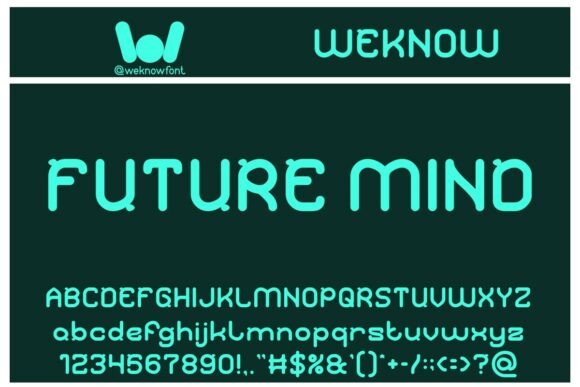
Introducing Future Mind Font: The Ultimate Display Typeface for Modern Design
In the world of typography, fonts play a crucial role in conveying the tone and personality of a brand or design project. With the ever-evolving landscape of digital media, it’s essential to have a font that can adapt to various mediums while maintaining its unique charm. This is where Future Mind Font comes in – a robust display font that seamlessly blends modern futurism with nostalgic retro vibes.
What is Future Mind Font?
Future Mind typeface is a sleek and modern display font designed to make a statement. Its eclectic blend of futuristic and retro elements creates a unique visual identity that’s perfect for headlines, branding, and creative projects. The font’s monospace style gives it a clean and structured look, making it highly readable across various mediums.
The Characteristics of Future Mind Font
So, what makes Future Mind Font stand out from the rest? Here are some of its key characteristics:
- Modern Futurism: Future Mind Font boasts a futuristic design that’s perfect for brands and projects looking to convey a sense of innovation and forward-thinking.
- Nostalgic Retro Vibes: The font’s retro elements add a touch of warmth and playfulness, making it suitable for projects that require a friendly and approachable tone.
- Sleek Monospace Style: The font’s monospace style ensures that it’s highly readable, even at smaller sizes.
- Versatility: Future Mind Font is designed to work seamlessly across various mediums, from apparel and music to movies, games, and digital platforms.
Use Cases for Future Mind Font
Future Mind Font is an incredibly versatile typeface that can be used in a wide range of applications. Here are some examples:
- Headlines and Branding: The font’s bold and modern design makes it perfect for headlines, logos, and branding projects.
- Apparel and Merchandise: Future Mind Font looks great on apparel, posters, and other merchandise, adding a touch of modern style to any design.
- Music and Entertainment: The font’s playful and futuristic vibe makes it suitable for music labels, album covers, and movie posters.
- Digital Platforms: Future Mind Font works seamlessly on digital platforms like YouTube, Instagram, and other social media channels.
- Corporate Branding: The font’s modern charm and superior readability make it an excellent choice for corporate branding, magazines, books, and comic strips.
The Benefits of Using Future Mind Font
So, why choose Future Mind Font for your next design project? Here are some benefits:
- Unique Visual Identity: Future Mind Font offers a distinct and recognizable visual identity that sets your brand or project apart.
- Improved Readability: The font’s sleek monospace style ensures that your text is highly readable, even at smaller sizes.
- Versatility: Future Mind Font can be used across various mediums, making it a great investment for designers and brands.
- Time-Saving: With Future Mind Font, you can create professional-looking designs quickly and efficiently, saving you time and effort.
Tips for Using Future Mind Font
To get the most out of Future Mind Font, here are some tips:
- Experiment with Sizes: Future Mind Font looks great at various sizes, so don’t be afraid to experiment and find the perfect fit for your design.
- Pair it with Other Fonts: Future Mind Font pairs well with other fonts, so try combining it with complementary typefaces to create visual interest.
- Pay Attention to Kerning: As with any font, pay attention to kerning to ensure that your text looks professional and polished.
In conclusion, Future Mind Font is a robust display font that offers a unique blend of modern futurism and nostalgic retro vibes. Its sleek monospace style, versatility, and superior readability make it an excellent choice for a wide range of design projects. Whether you’re a designer, brand, or entrepreneur, Future Mind Font is a great investment that can help you create professional-looking designs quickly and efficiently.
Future Mind Font – The Perfect Choice for Your Next Design Project